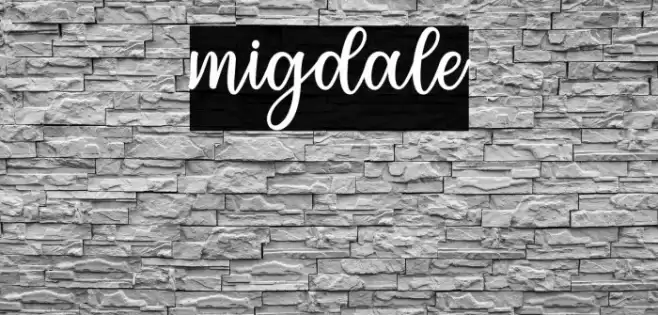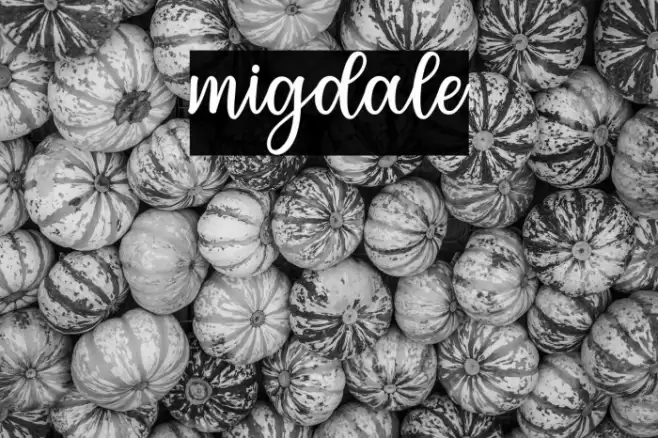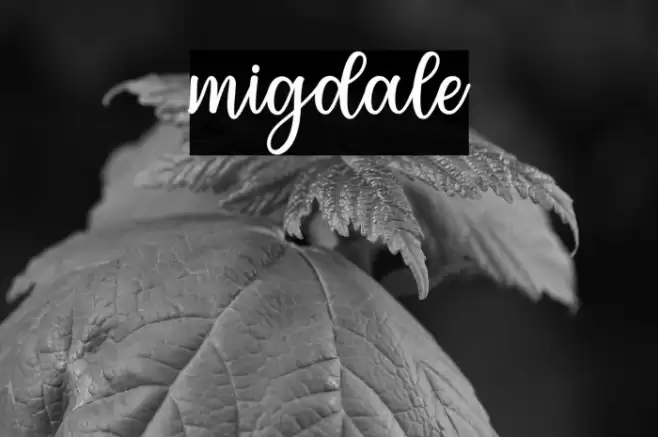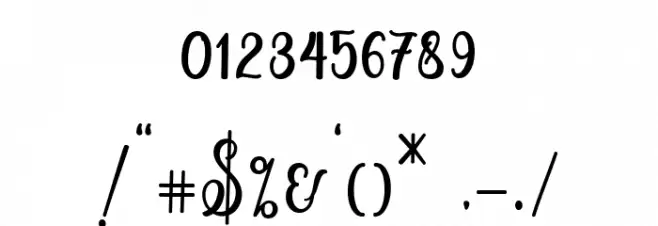
migdale Font
migdale Description
This font exhibits a charming and playful script style, characterized by its flowing, cursive letterforms. The uppercase letters are elegantly looped and swirled, adding a touch of sophistication and whimsy. The lowercase letters maintain a consistent flow, with smooth connections between each character, enhancing readability while preserving the font's decorative nature. The numerals are styled to match the script's fluidity, ensuring a cohesive look across all text. Special characters are thoughtfully designed, integrating seamlessly with the overall aesthetic. This font's unique personality makes it suitable for creative and expressive design projects.
A playful and elegant script font with flowing, cursive letterforms from Regular fonts.
- Proposed Projects: Ideal for wedding invitations, greeting cards, branding, and logo design.
- Use Case: Logos, Invitations, Decorative text